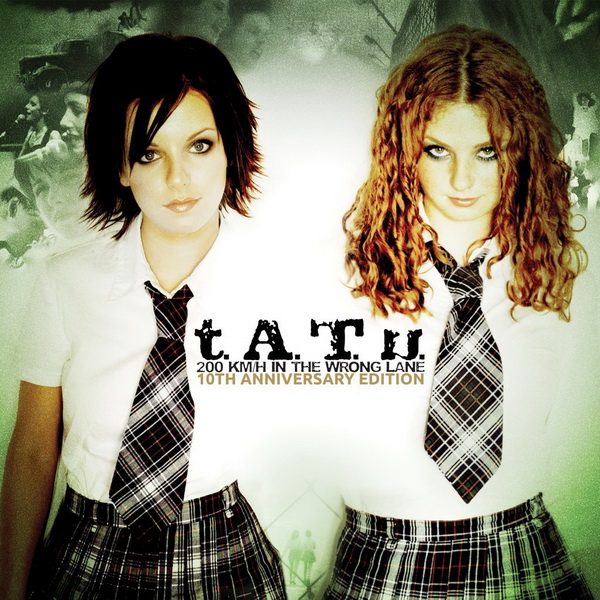
t.A.T.u Font
Electronict.A.T.u is a Russian pop duo consisting of Lena Katina and Julia Volkova. They rose to international fame in the early 2000s with their controversial image and hit songs like "All the Things She Said" and "Not Gonna Get Us."
The duo's logo, as seen on their album covers features distressed lettering that closely resembles a font named TATU. The font is available for free download from the Fonts Used Section.